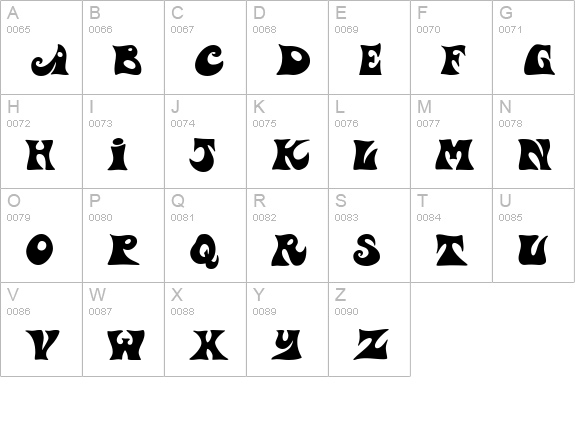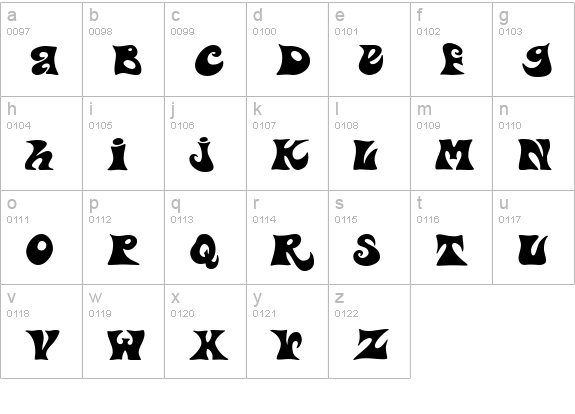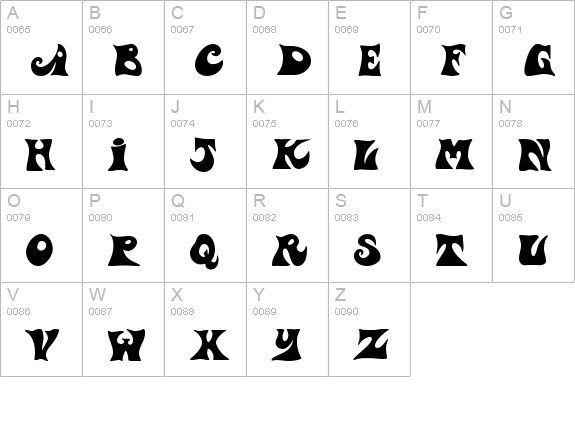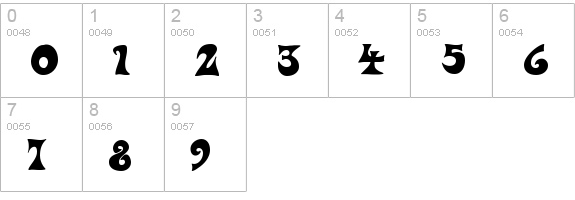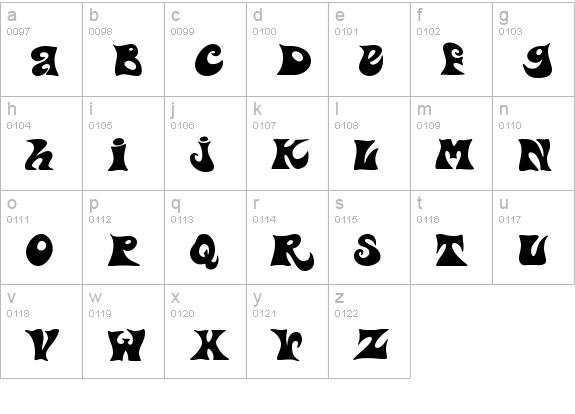
PFPsychedelia-Dropout font is a captivating and unique typeface that exudes a sense of creativity and individuality. With its psychedelic-inspired design and whimsical elements, this font is perfect for projects that require a touch of whimsy and originality. The irregular shapes and quirky details make PFPsychedelia-Dropout font stand out from the crowd and add a playful charm to any design. Best of all, PFPsychedelia-Dropout font is available for free download at FontsMarket.com. This means you can easily access this one-of-a-kind font and use it in your personal or commercial projects without any cost. Whether you're working on a poster, logo, website, or any other design project, PFPsychedelia-Dropout font is sure to make a bold statement and leave a lasting impression. Download it now and let your creativity run wild with this delightful and eye-catching font!